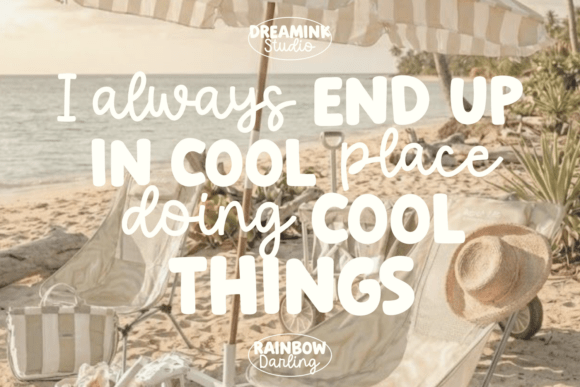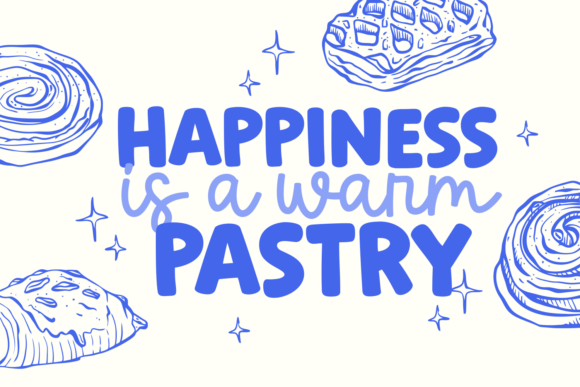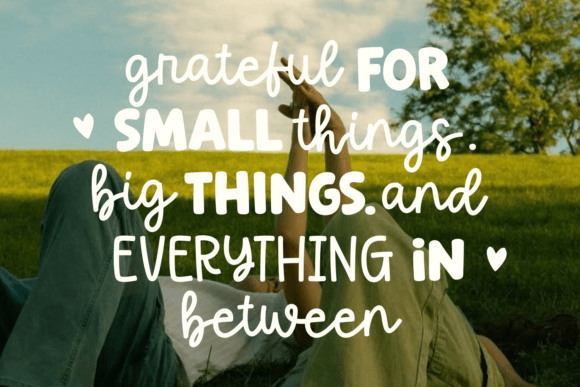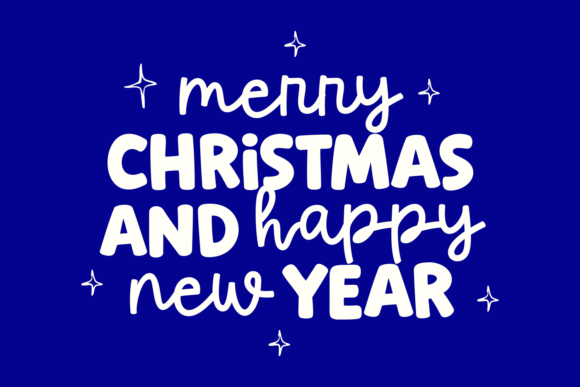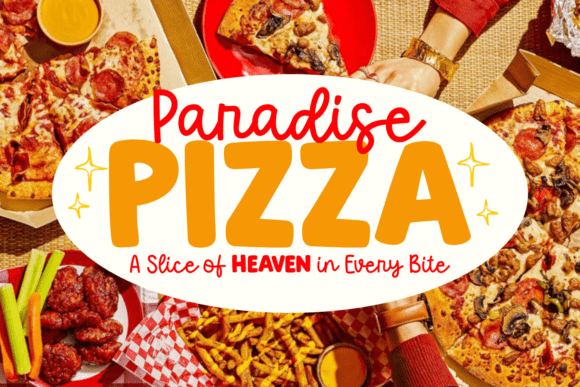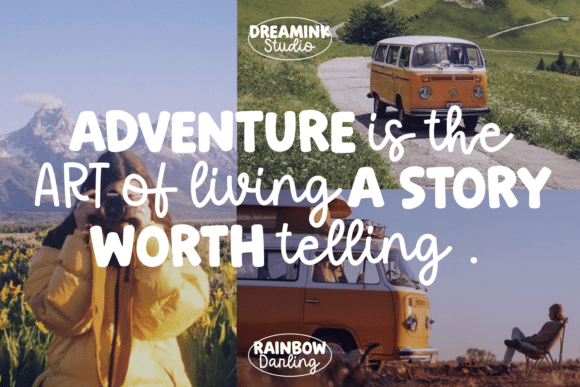
Introduction to Rainbow Darling Duo Font Font
Fonts play a crucial role in design, and the Rainbow Darling Duo Font font is a typeface that brings both character and versatility to any project. Whether you’re working on a branding project, a website, or a print design, the Rainbow Darling Duo Font font offers a unique style that can elevate your work.
Experience the perfect harmony of strength and whimsy with Rainbow Darling, a versatile font duo.
This collection pairs a massive, chunky sans-serif with a graceful, monolinear script, offering a complete toolkit for high-impact visual storytelling The bold βRainbowβ component features thick, rounded letterforms that radiate urban energy, while the βdarlingβ script provides a rhythmic, hand-drawn elegance that feels personal and sincere.
The Rainbow Darling Duo Font font is more than just a typeface β it’s a design tool that helps you communicate your message with style and clarity. Its unique character set and versatile design make it suitable for a wide range of applications, from elegant invitations to bold headlines.
With its carefully crafted letterforms and balanced proportions, the Rainbow Darling Duo Font font ensures readability and visual appeal across all mediums.
What makes Rainbow Darling Duo Font font special?
The Rainbow Darling Duo Font font stands out with its unique design, exceptional readability, and versatility across various design applications.